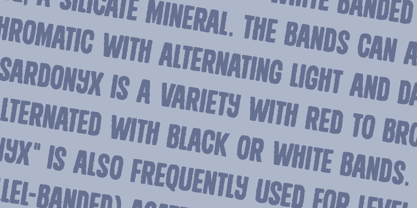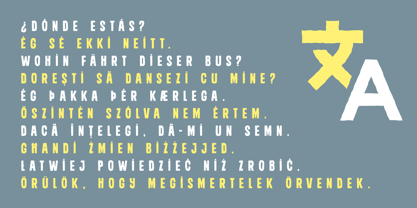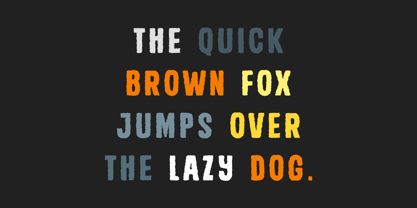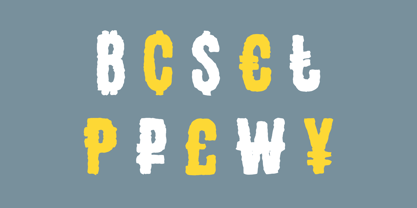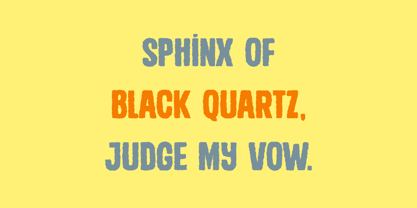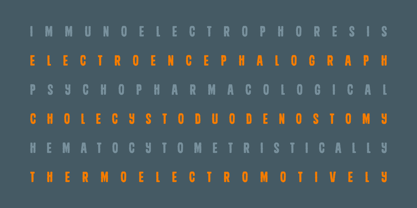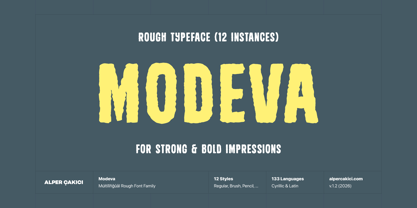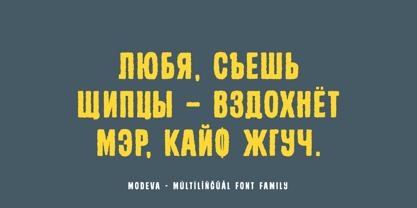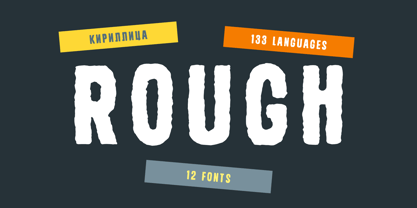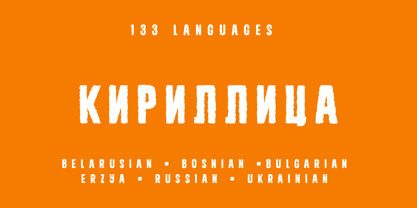
Modeva
The Modeva Font Family was designed by Alper Çakıcı and published by AlperCakici. Modeva contains 12 styles and family package options. More about this family
Modeva is a rough handmade typeface family that captures the raw rhythm of natural writing — expressive, imperfect, and confidently human. Designed without added texture effects, Modeva achieves its character through carefully shaped rough contours, giving it an authentic handcrafted voice while remaining clean and highly usable. Modeva balances structure and spontaneity. The letterforms feel drawn rather than constructed — slightly irregular, subtly energetic, and full of personality. Whether you're crafting bold headlines, branding, packaging, social media graphics, posters, or editorial layouts, Modeva brings warmth and individuality to every composition. Each style explores a different handmade mood — from sharper angular expression to softer brush strokes and raw eroded edges — giving designers a versatile toolkit for layered typography and expressive branding. Key Features: • Rough handmade aesthetic • Expressive yet legible letterforms • 12 versatile styles • Perfect for branding, posters, packaging, apparel, social media, and editorial use • Strong personality with professional usability Modeva is for designers who want authenticity without chaos — character without clutter. It’s handmade energy, refined for modern design.